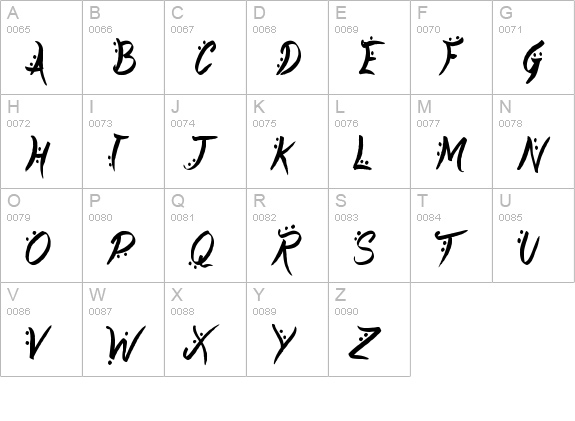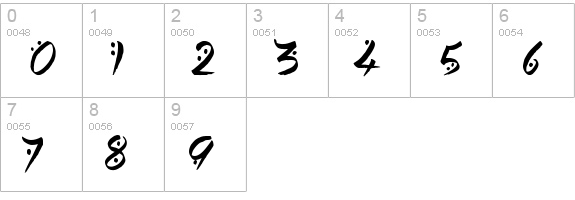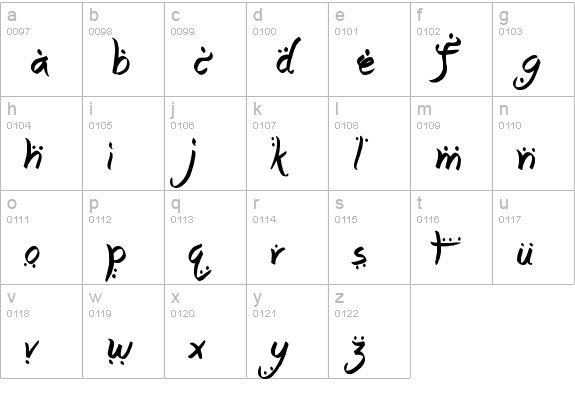
Strength font is a bold and powerful typeface that embodies the essence of strength and resilience. With its strong and muscular letterforms, this font exudes confidence and determination. Designed to make a statement, Strength font is perfect for conveying a sense of power and authority in your designs. What makes Strength font truly remarkable is that it is not only visually striking, but also freely available to download. At FontsMarket.com, you can easily access and download this font without any cost or restrictions. This means that you can harness the power and impact of Strength font for your personal or commercial projects without worrying about breaking the bank. Whether you need to create impactful headlines, compelling logos, or eye-catching posters, Strength font is the perfect choice. Its bold and commanding presence will demand attention and leave a lasting impression on your audience. With its wide range of characters and glyphs, you can easily customize and adapt Strength font to suit your specific design needs. The versatility of Strength font is further enhanced by its compatibility with various design software and applications. Whether you prefer to work with Adobe Photoshop, Illustrator, or InDesign, or any other design tool, you can seamlessly integrate Strength font into your workflow and bring your creative visions to life. So, if you are looking for a typeface that embodies strength, power, and resilience, look no further than Strength font. With its captivating presence and impressive versatility, this font will elevate your designs to new heights. And the best part? You can freely download Strength font at FontsMarket.com, making it accessible to designers and creatives of all backgrounds. Unleash the power of Strength font in your designs today and make a bold statement that demands attention.